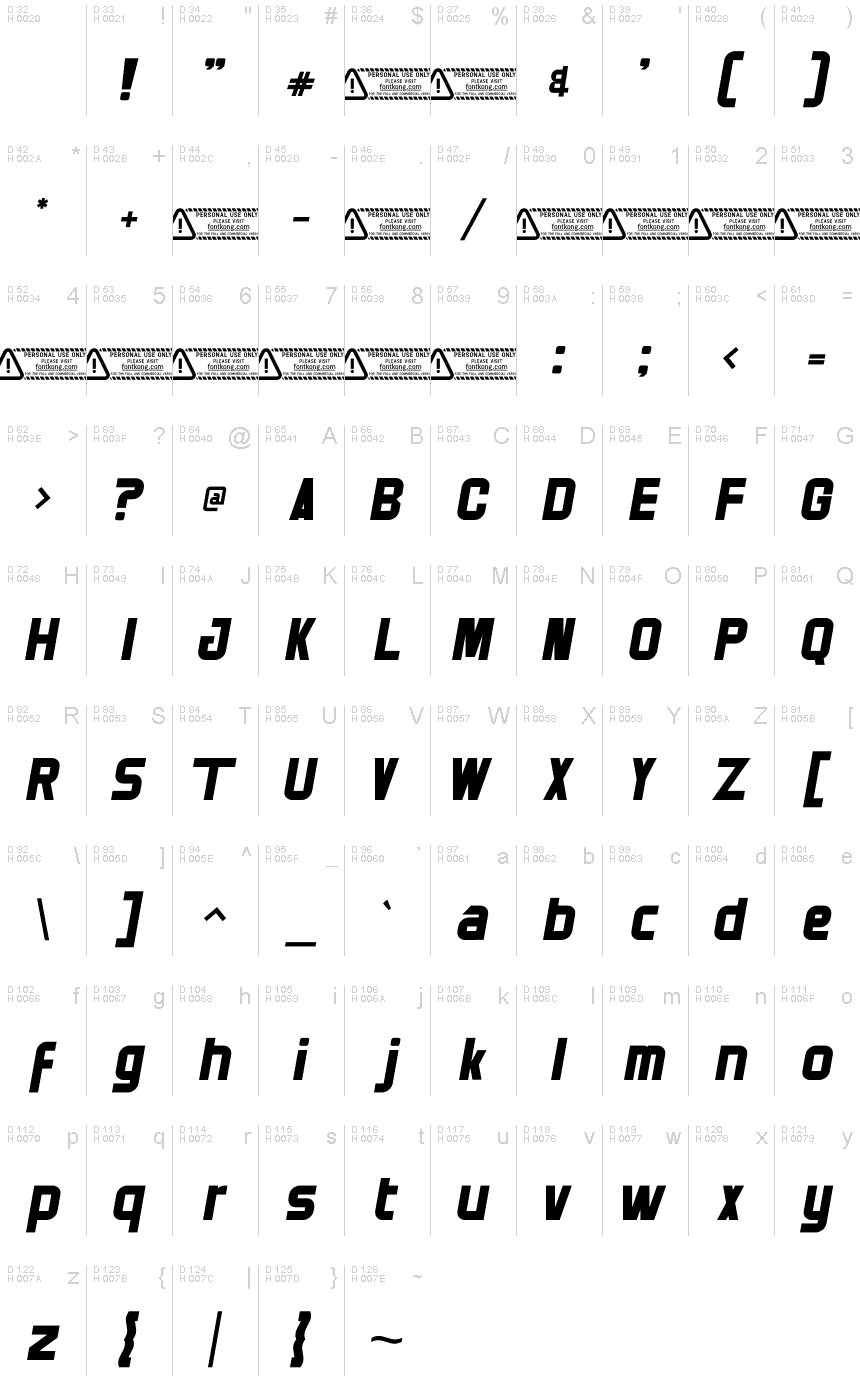
Genovast
Genovast, created by Kong Font, is a bold and semi-condensed display font that exudes a futuristic vibe. Its sleek and modern design makes it perfect for projects in need of a cutting-edge aesthetic.
Use Genovast to add a touch of innovation to technology websites, sci-fi book covers, or even futuristic logo designs. This versatile font will captivate your audience with its unique style and make your project stand out among the rest.
Let Genovast take your creative endeavors into the realm of the unknown.